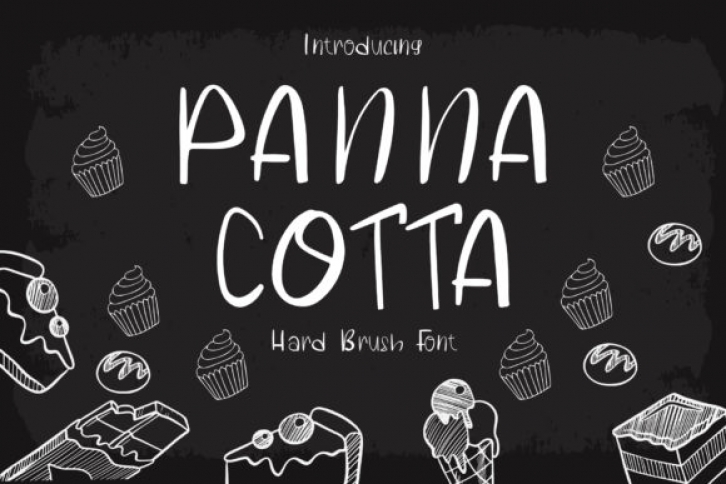
Panna Cotta is a sweet and friendly handwritten font. Its natural and unique style makes it incredibly fitting to a large pool of designs. The only limit is your imagination!